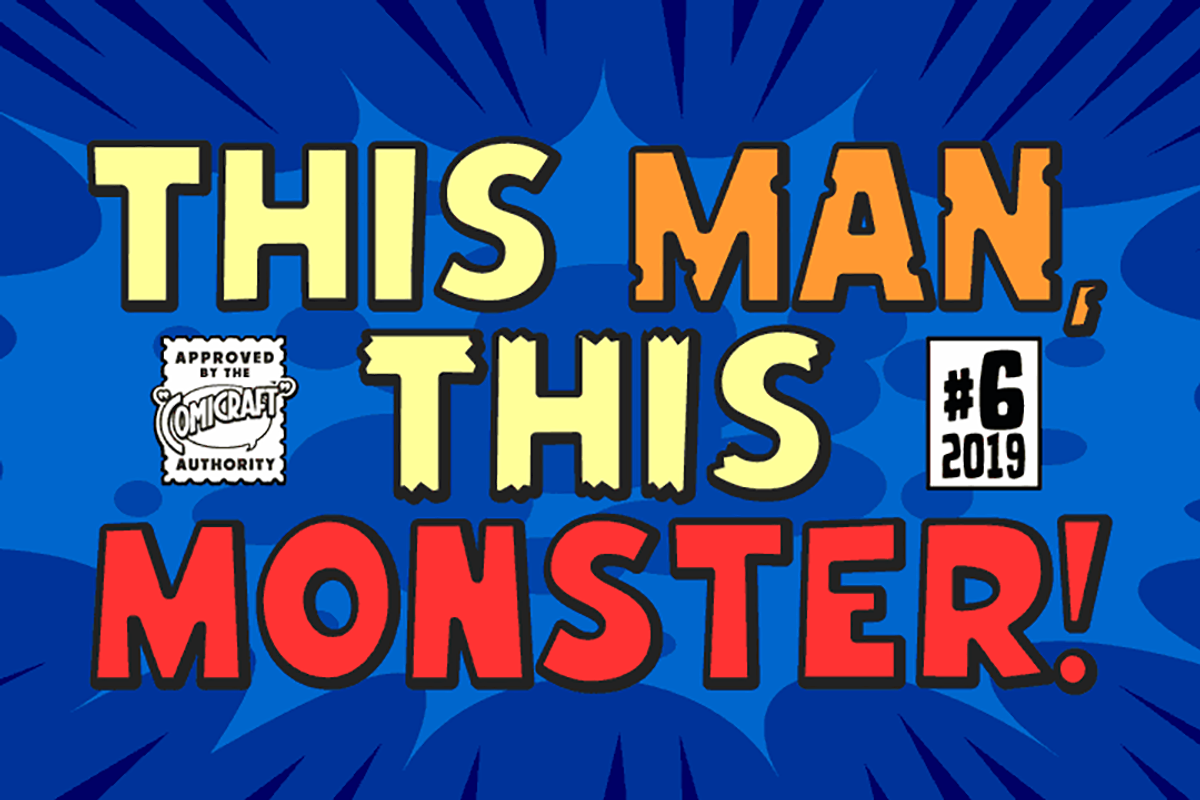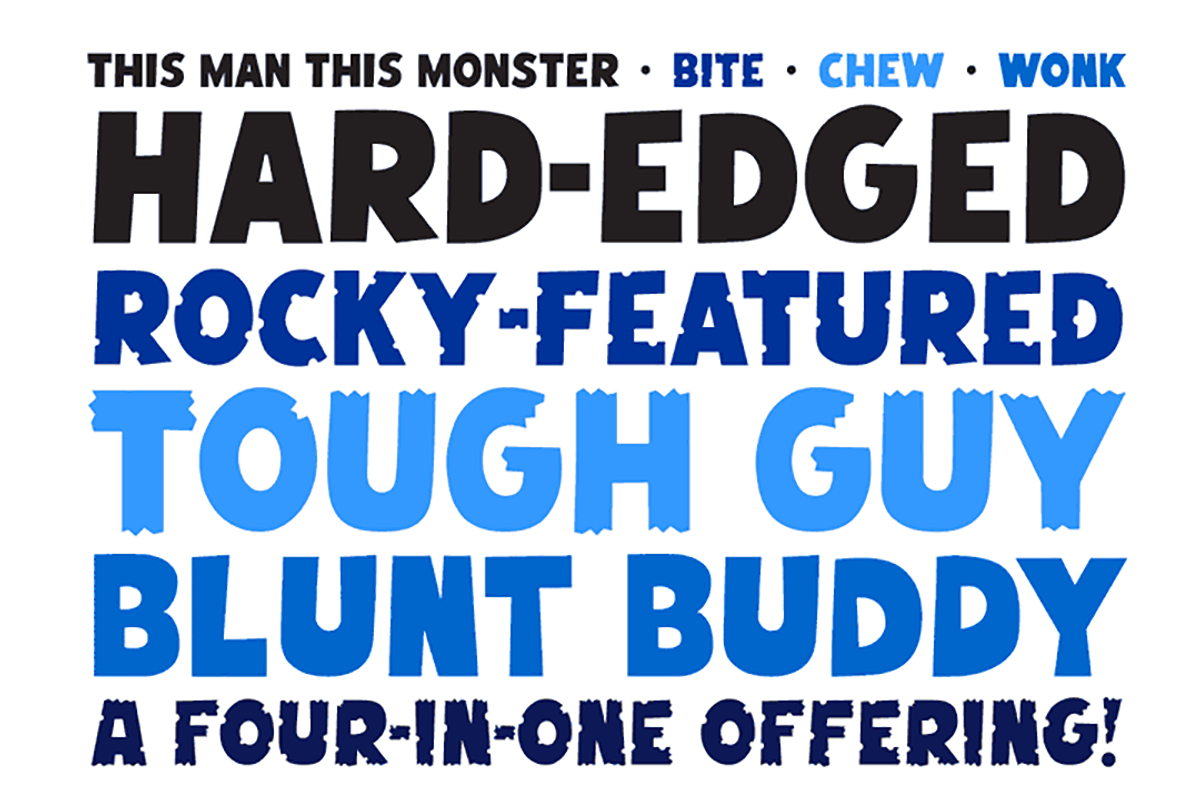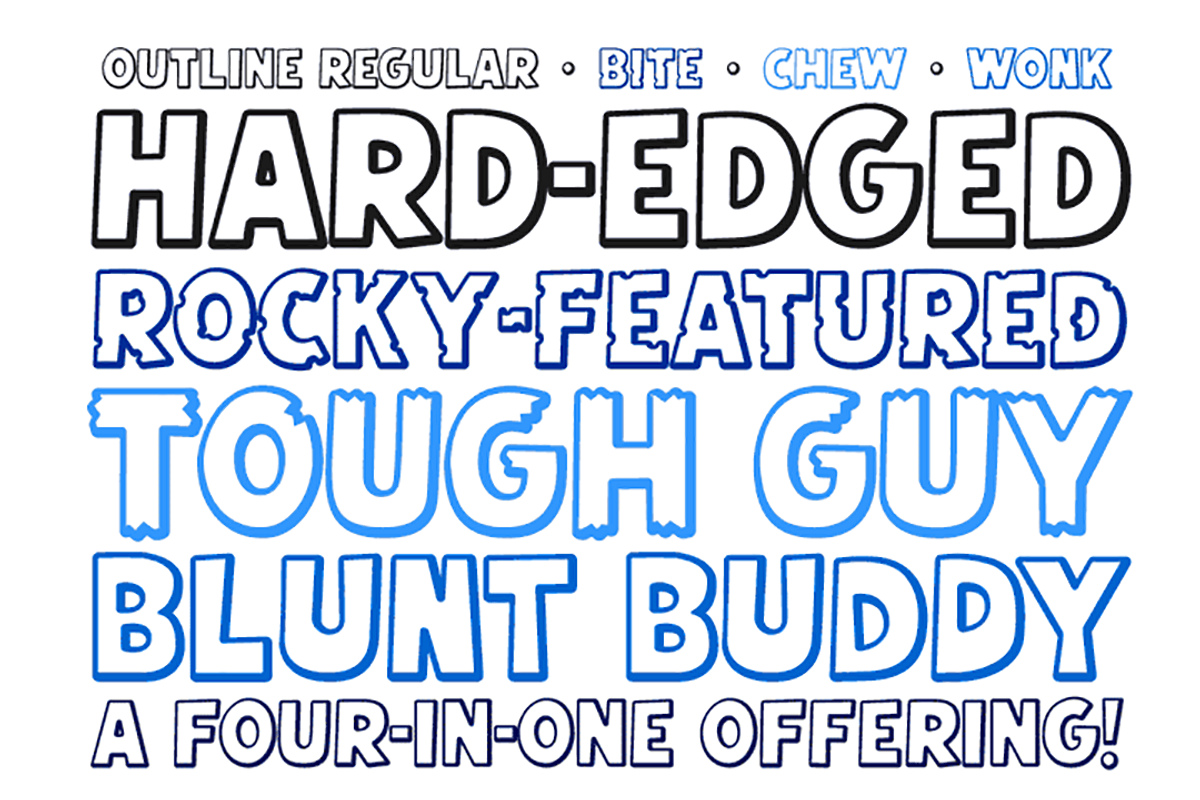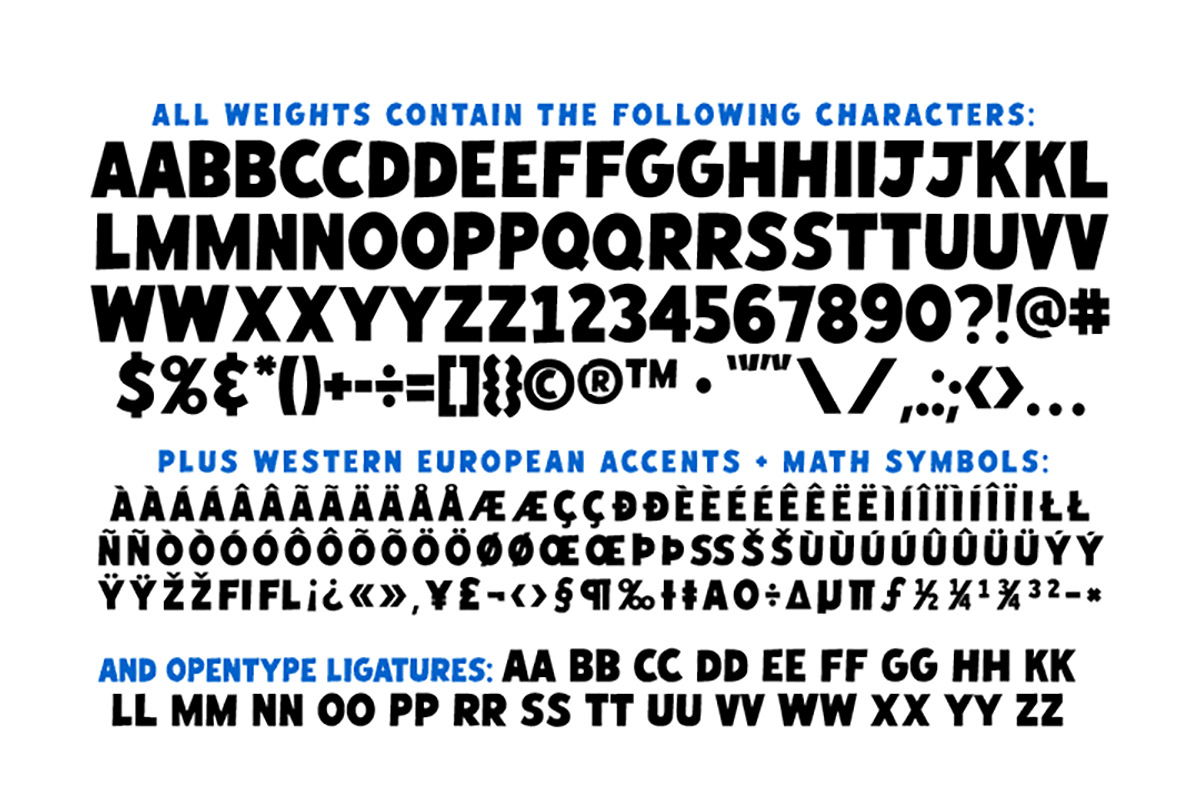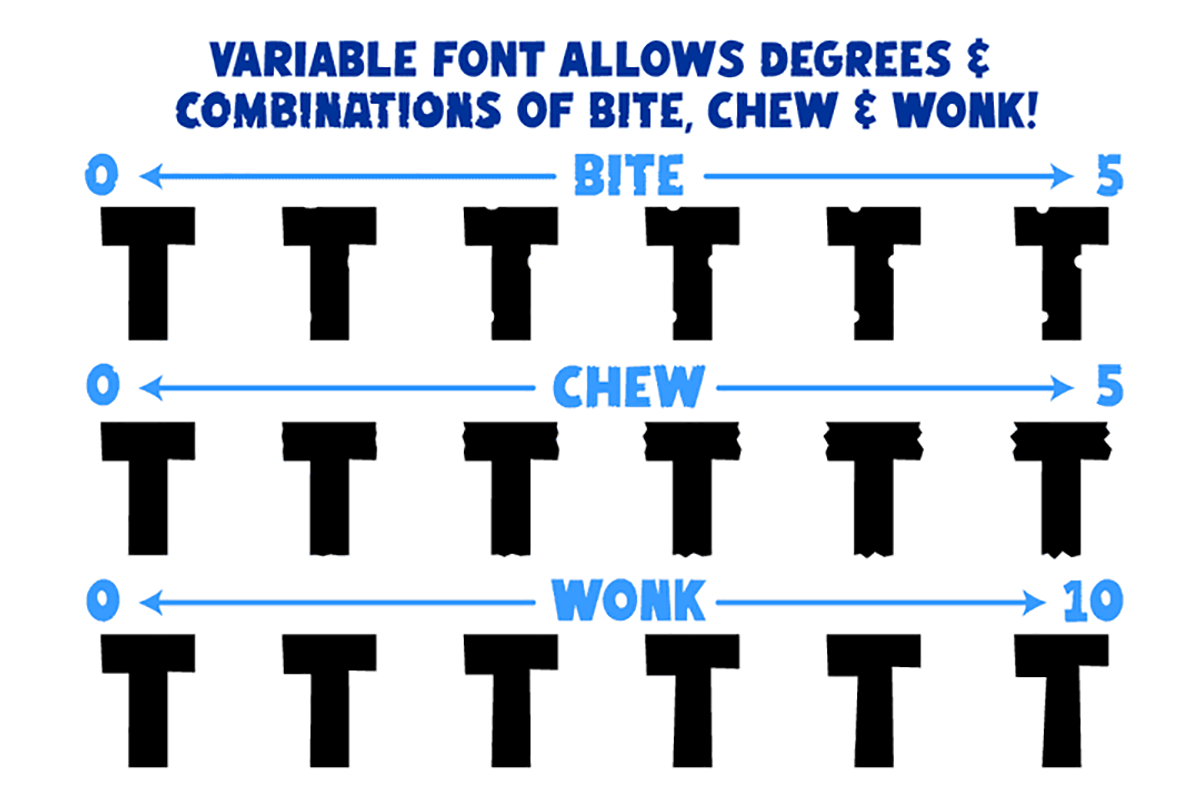
This Man This Monster
Half Man, Half Monster, Comicraft’s latest variable font hybrid is not only your burly, hard-edged, upfront and blunt buddy, it’s also your rough-hewn, tough and grim, rocky-featured pal! Not just Two-in-One, our latest offering brings together Four Fantastic Faces!
Eight weights (Solid Regular, Bite, Chew & Wonk plus Outline Regular, Bite, Chew & Wonk) with alternate uppercase characters and Western European accents. Also includes Variable font to dial in any combination of Bite, Chew and Wonk!